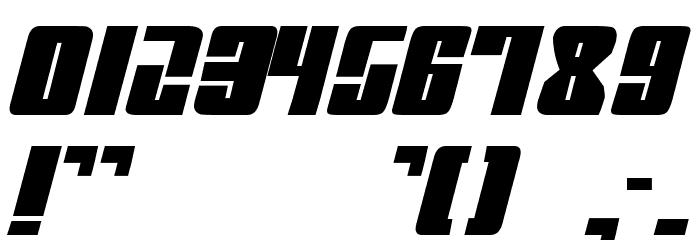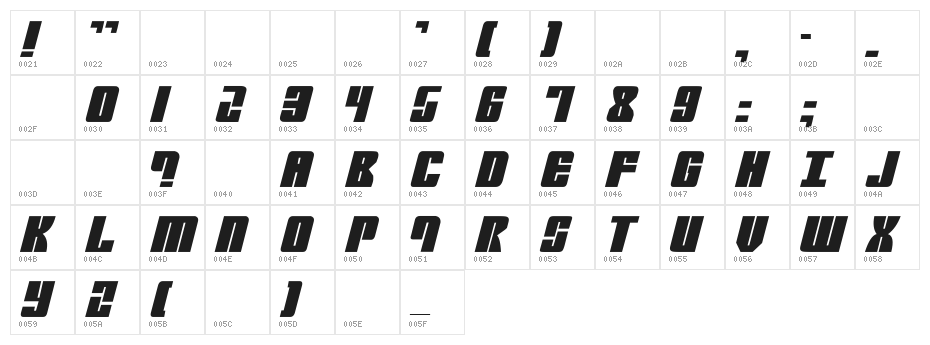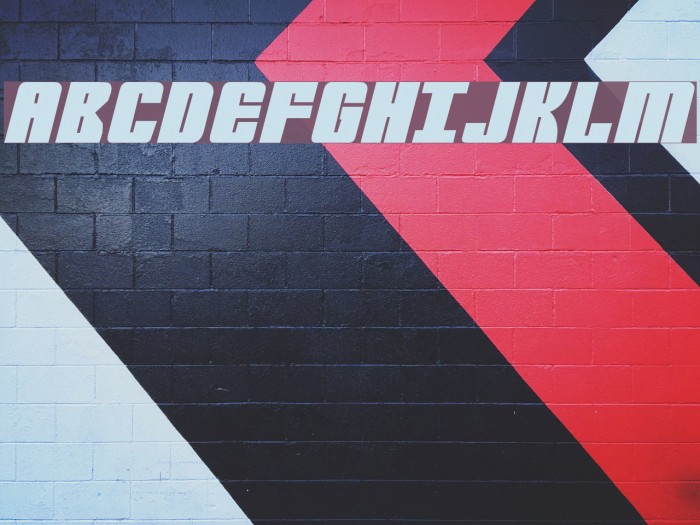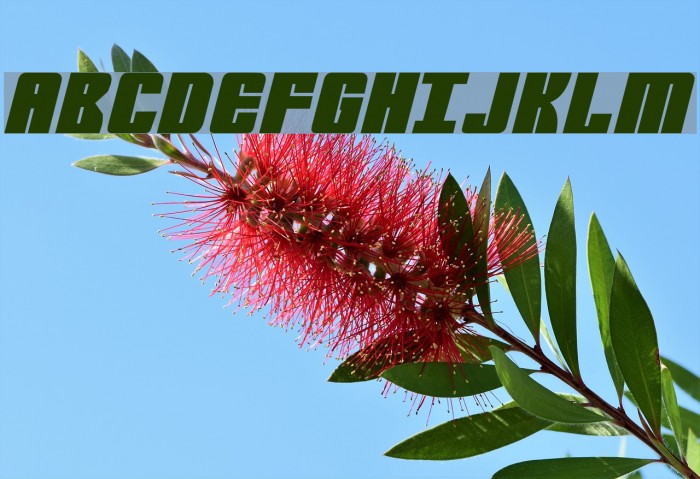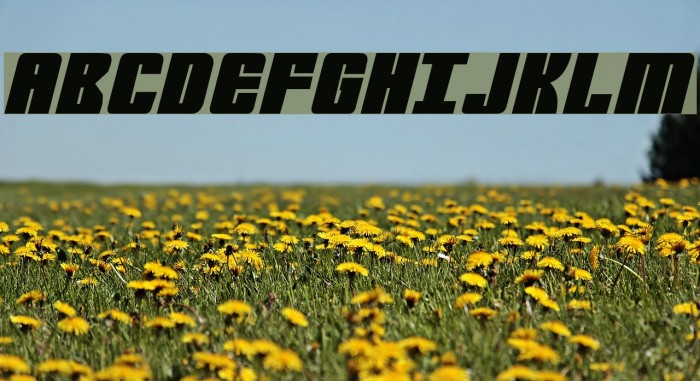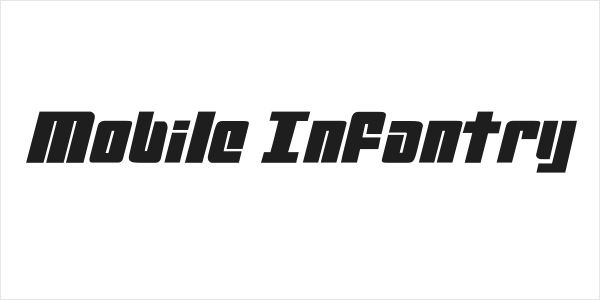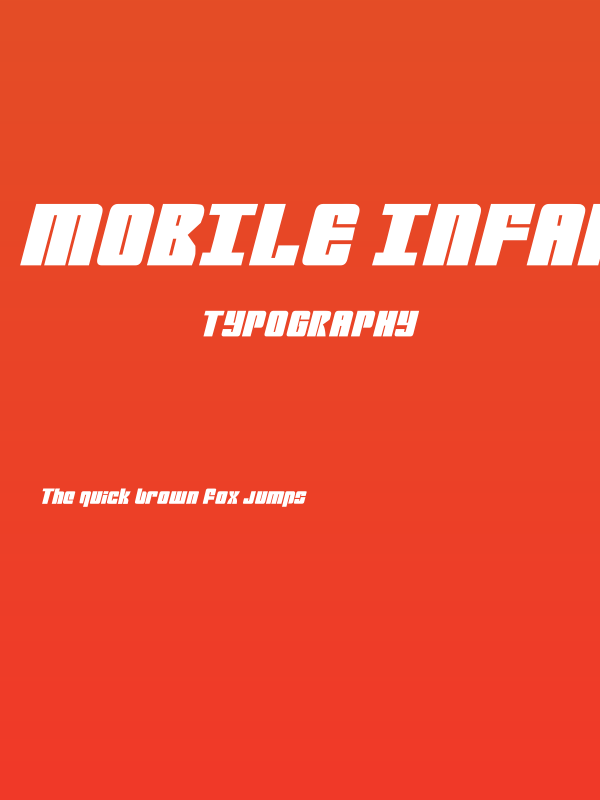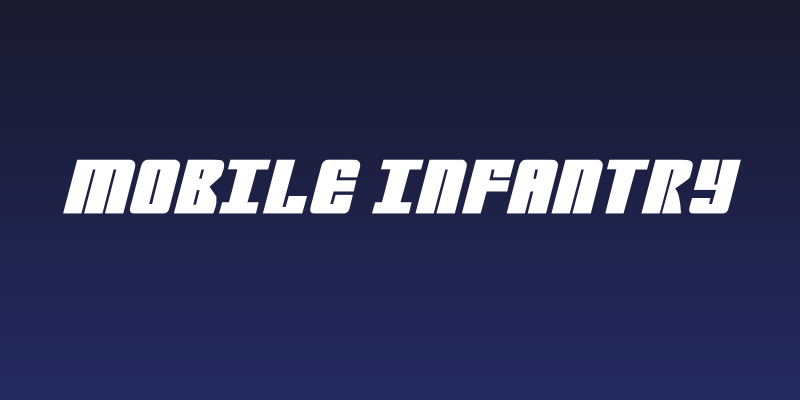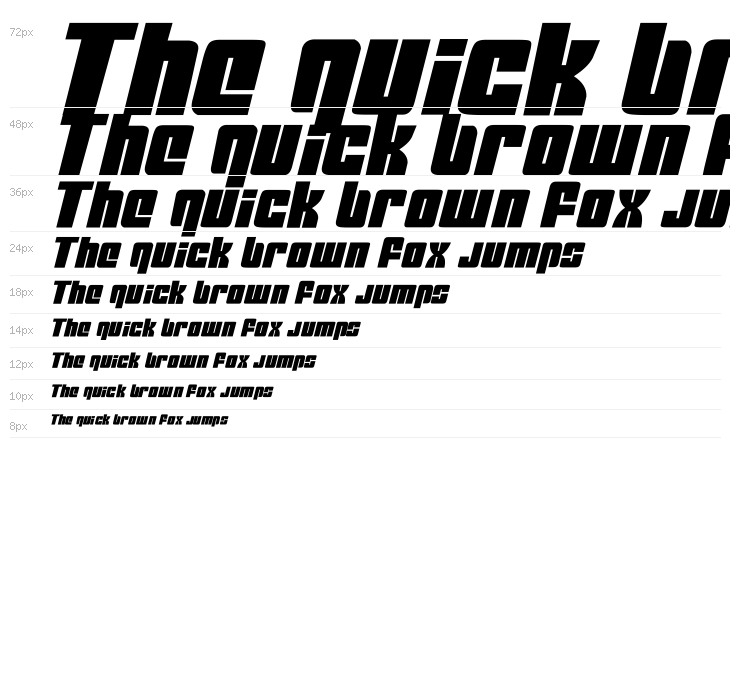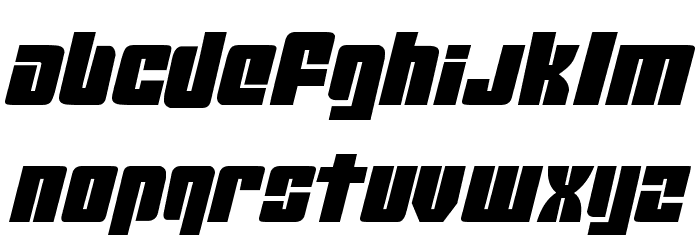
Mobile Infantry Font
Mobile Infantry Description
This font features a bold, futuristic design with a strong emphasis on geometric shapes and sharp angles. The characters are wide and blocky, giving a sense of strength and stability. The uppercase and lowercase letters maintain a consistent style, with the lowercase slightly smaller but equally bold. Numbers and special characters follow the same design principles, ensuring uniformity across all glyphs. The font's distinct style makes it stand out, with a modern and slightly aggressive appearance, ideal for projects that require a commanding presence.